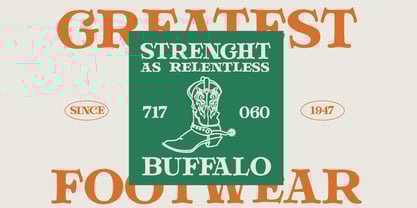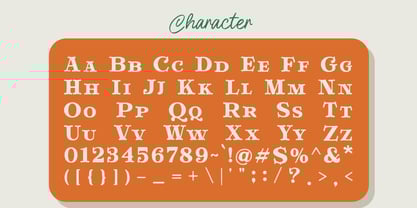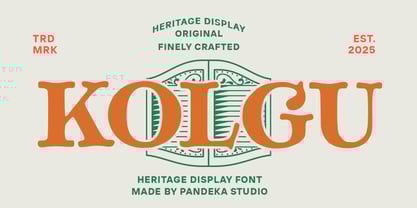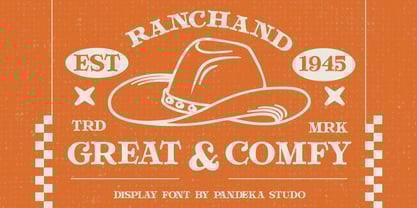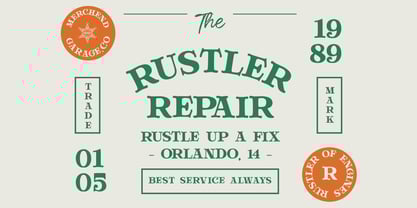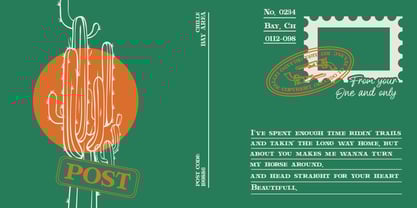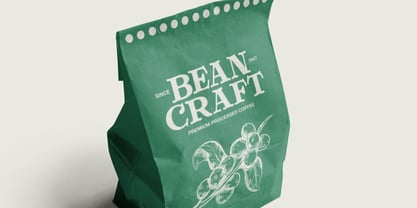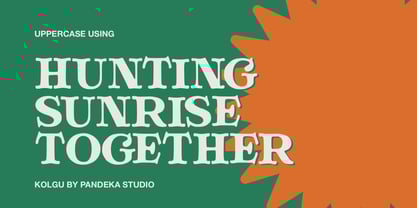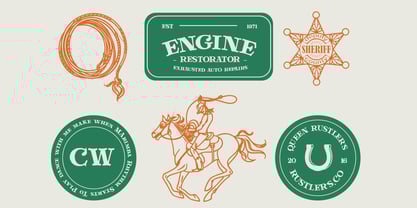
Kolgu
by Pandeka Studio
The Kolgu Font Family was designed by Sagara Nararya and published by Pandeka Studio. Kolgu contains 1 styles.
Kolgu – Heritage Serif Typeface
Kolgu is a classic serif font with a timeless vintage aesthetic, blending elegance and bold character. Ideal for heritage branding, editorial design, packaging, book covers, and sophisticated typography, it brings a refined and unique touch to any project.
• Full Character Set: Uppercase, lowercase, numbers, symbols, and punctuation
Designers: Sagara Nararya
Publisher: Pandeka Studio
Foundry: Pandeka Studio